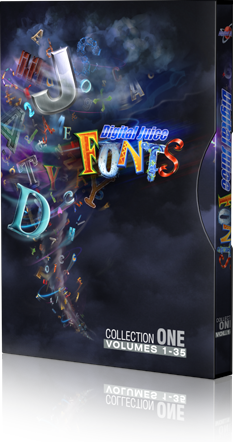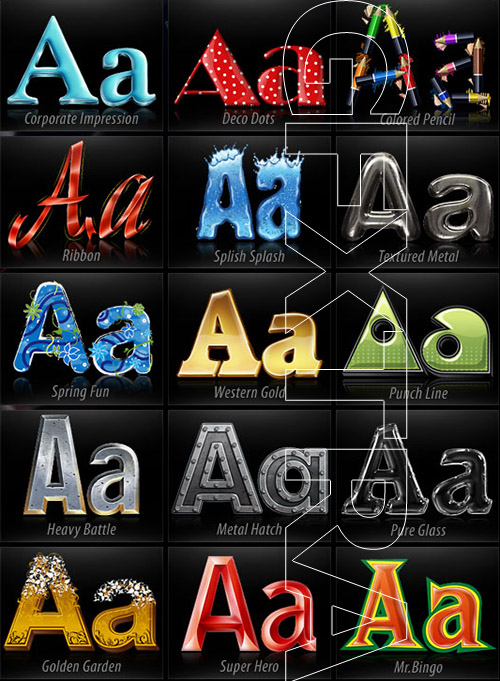
Digital Juice Fonts Collection 1
DIGITAL JUICE FONTS, Collection One is the culmination of more than fifty man-years of artistic and programming effort on the part of our Digital Juice development teams. It is also the harbinger of a whole new level of customization in the Digital Juice product arsenal. Each DJ Font Family in this collection is the result of hundreds of hours of painstaking detail work by our illustrators. This effort, in tandem with the endless hours put in by our programming team has provided you with a product more customizable, more powerful, more useful, and more fun than any product we've ever released.